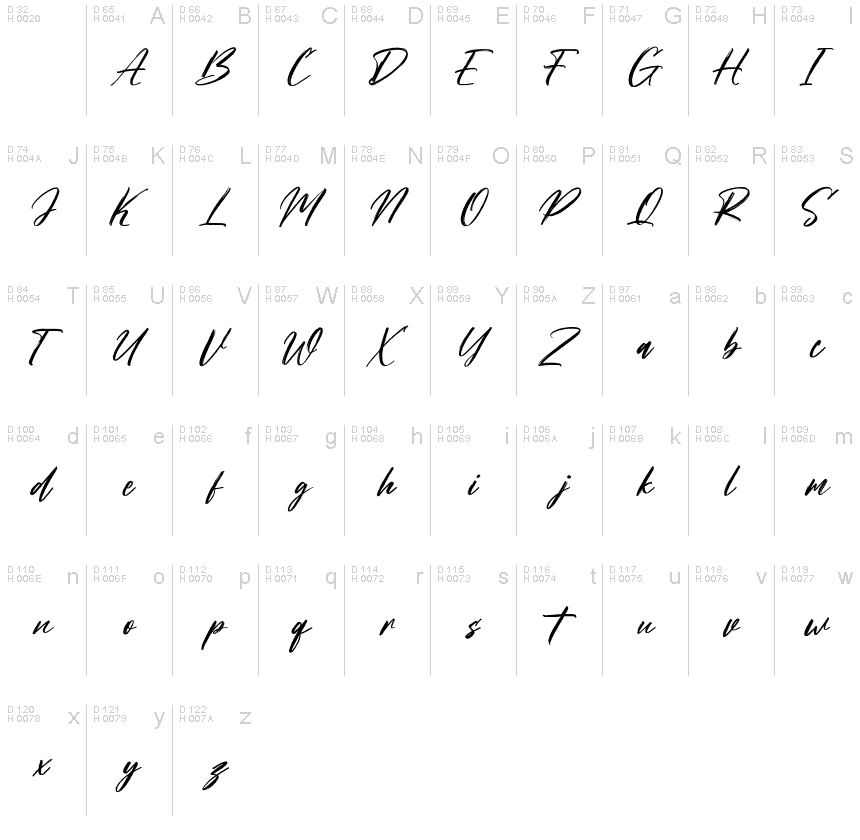
Mitoda Reels Free Regular
Experience the dynamic and playful brush strokes of Mitoda Reels, a lively typeface designed by Maulana Creative. Perfect for projects that require a fun and youthful touch, this semi-bold font features an eye-catching width that is sure to capture attention. Mitoda Reels is ideal for designs related to entertainment, such as movie posters or album covers. Its versatility also makes it suitable for fashion branding, social media graphics, and more. Bring your creations to life with the expressive energy of Mitoda Reels - the bold choice for modern creatives.